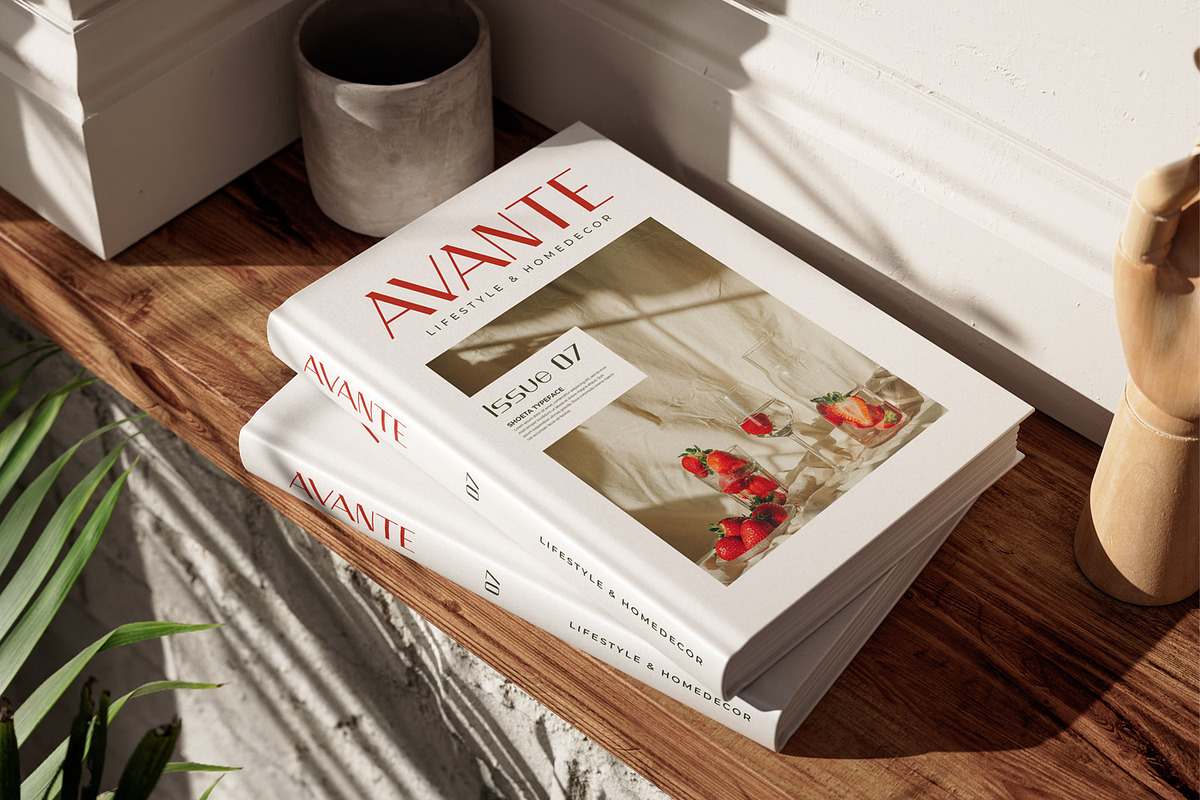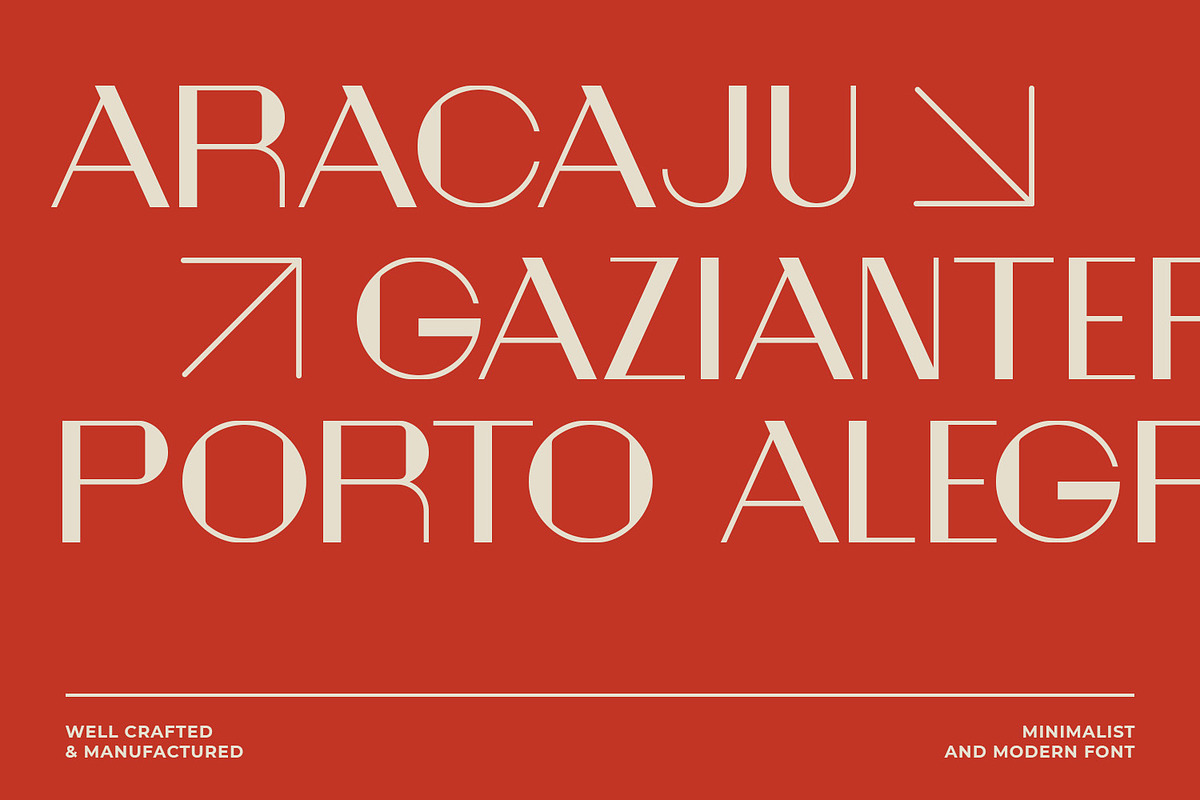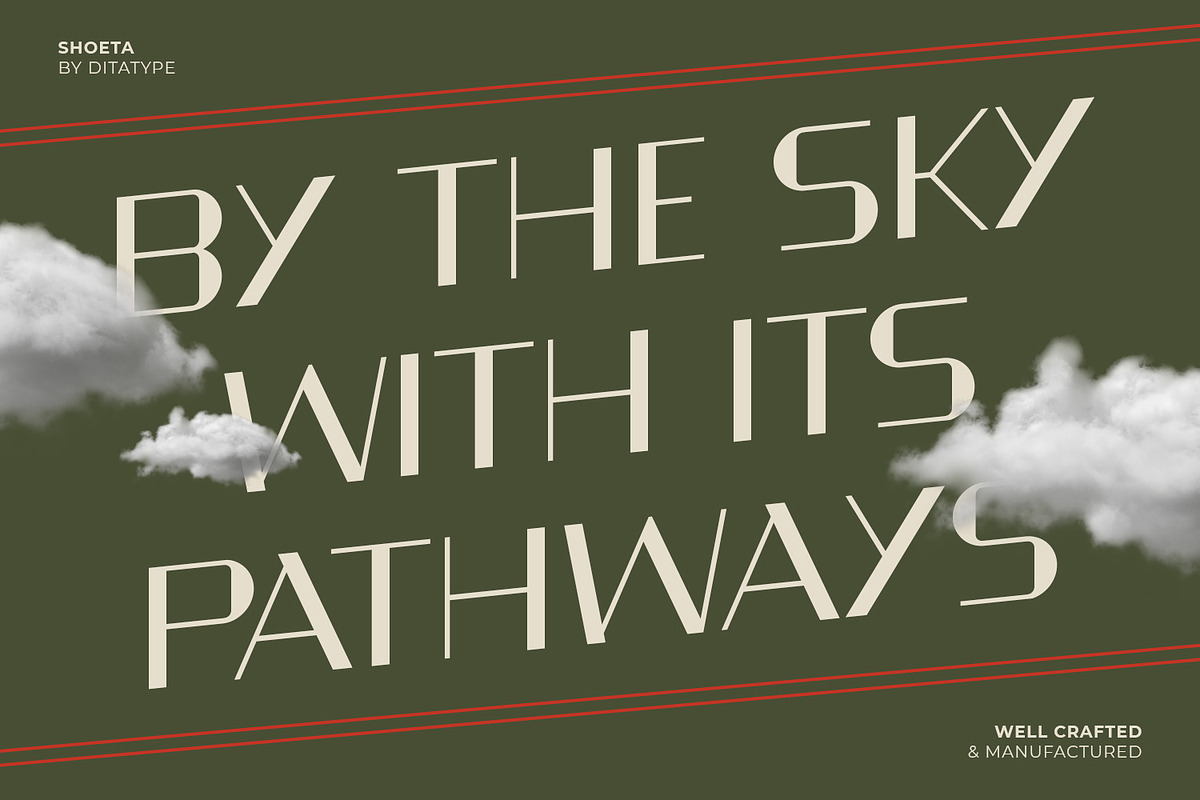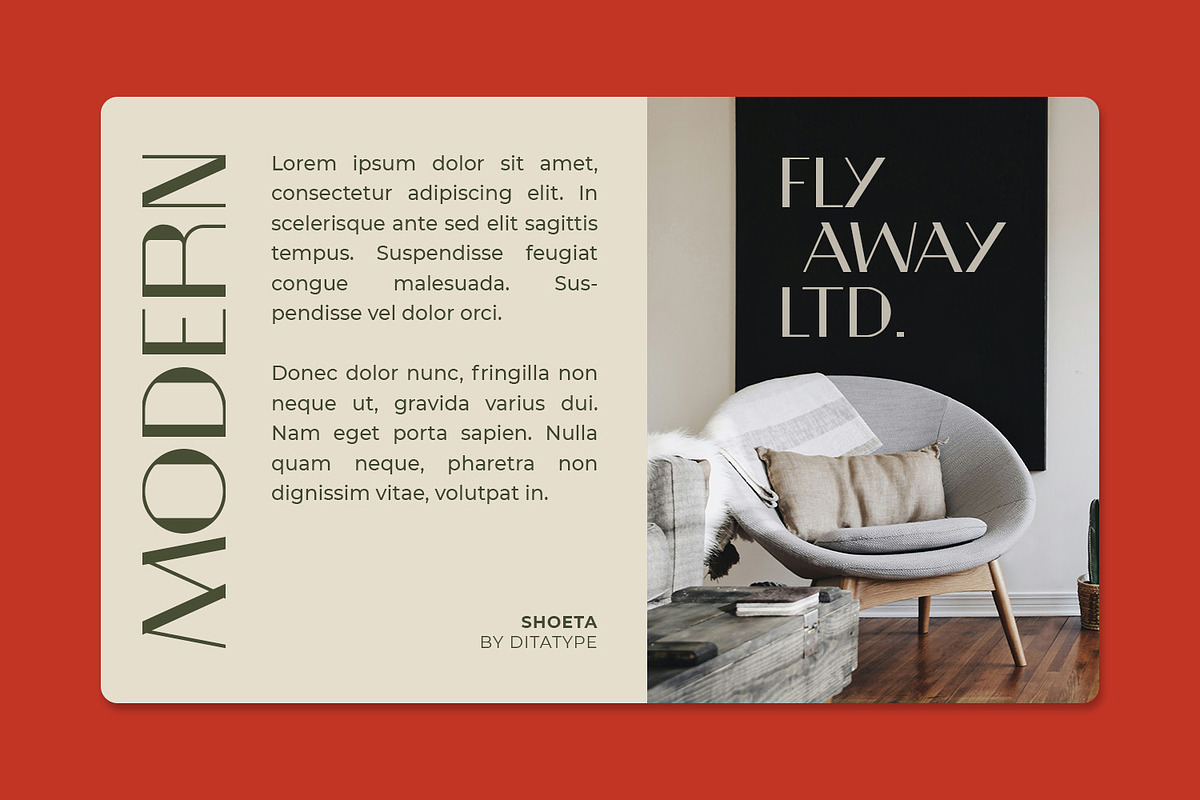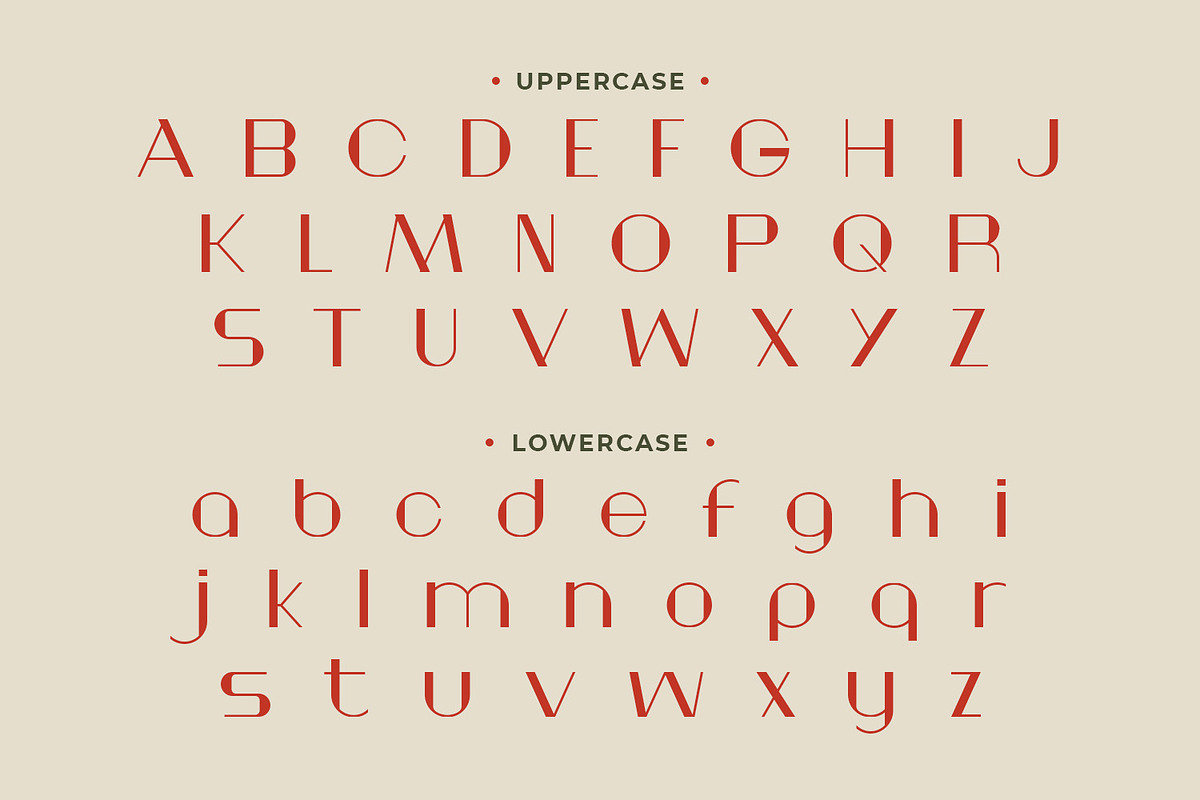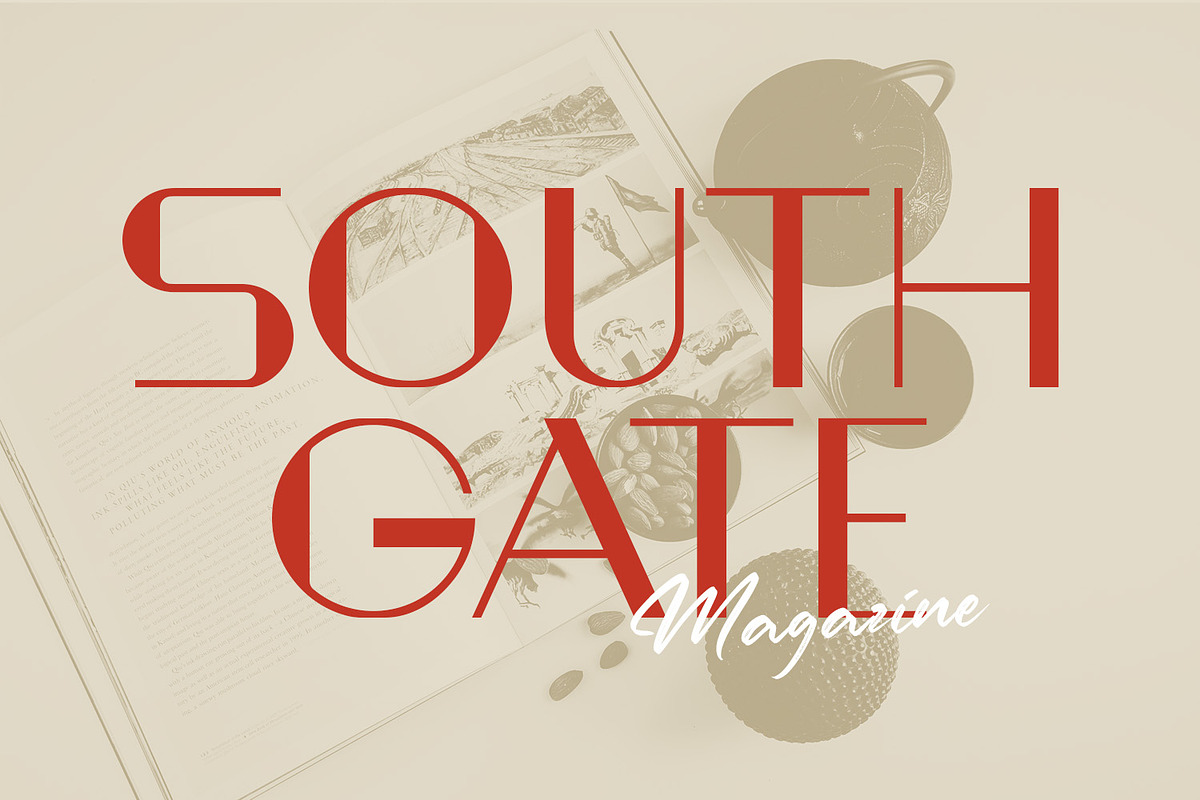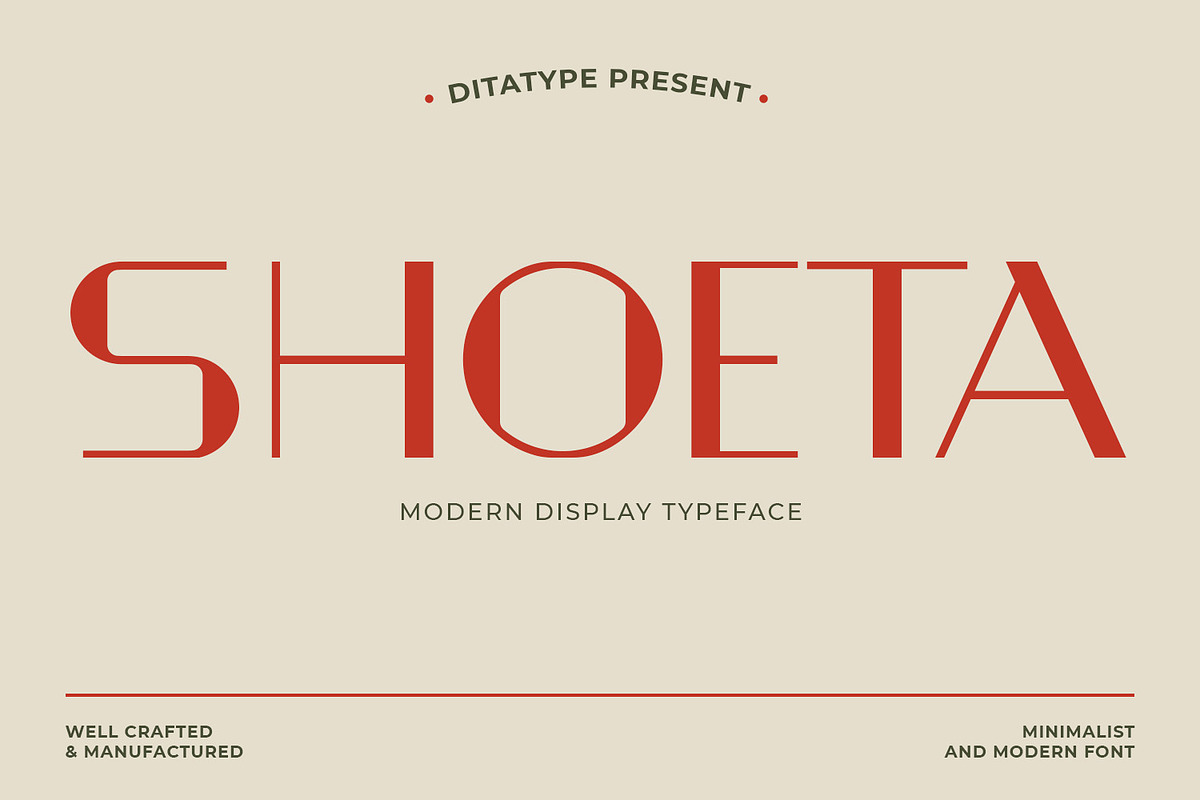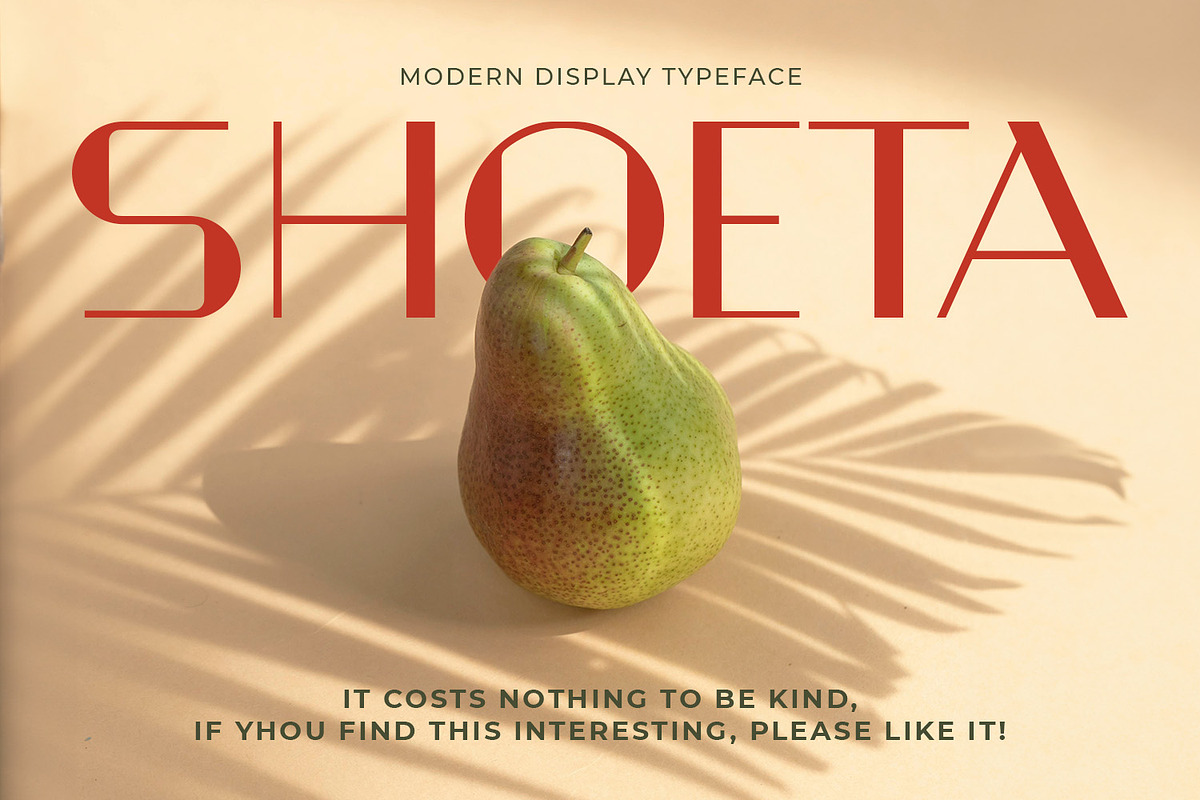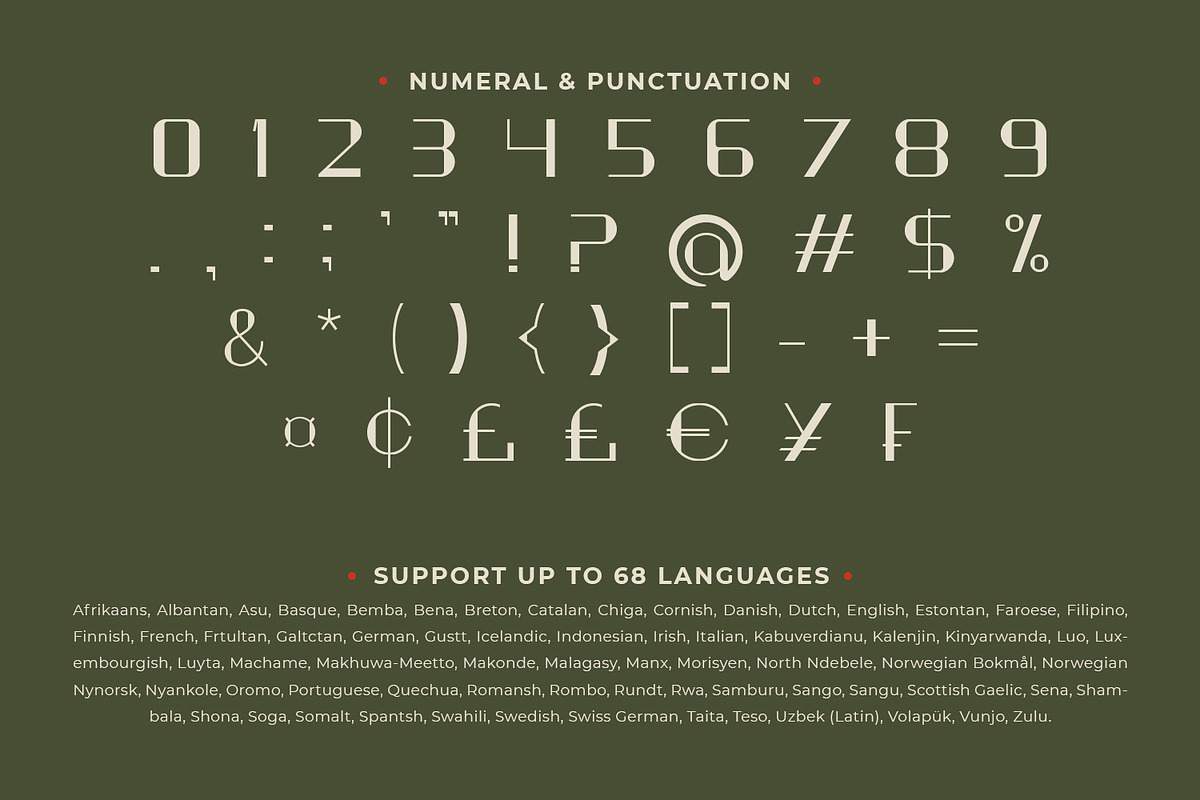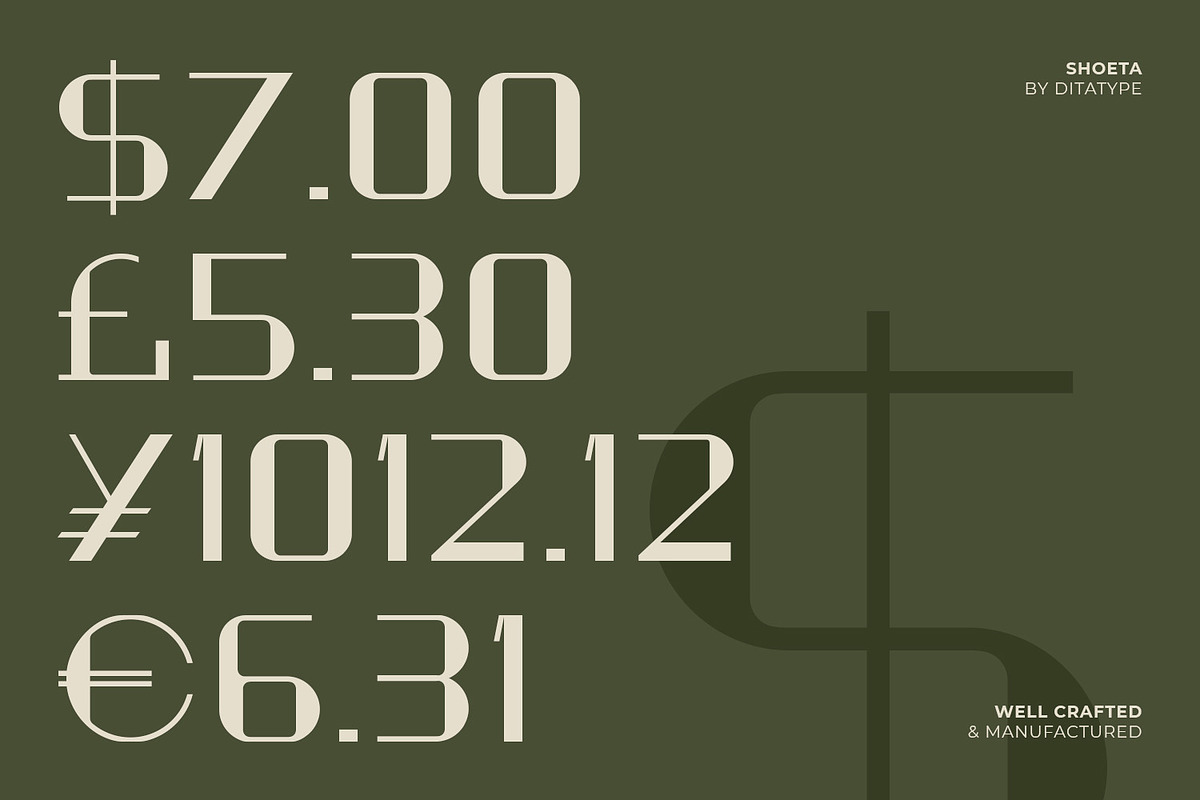
Shoeta
Introducing Shoeta, a modern display font designed in uppercase with a sleek, contemporary flair. The letter proportions are consistently balanced, creating a cohesive look, while the varying outline weights add a distinctive touch. This subtle contrast between uniformity and dynamic lines gives Shoeta a unique character. Shoeta effortlessly blends modern design with an eye-catching edge, ensuring your work stands out. In addition, enjoy the features here.
Shoeta fits in logos, posters, flyers, branding materials, print media, editorial layouts, and many more designs. Find out more ways to use this font by taking a look at the font preview.